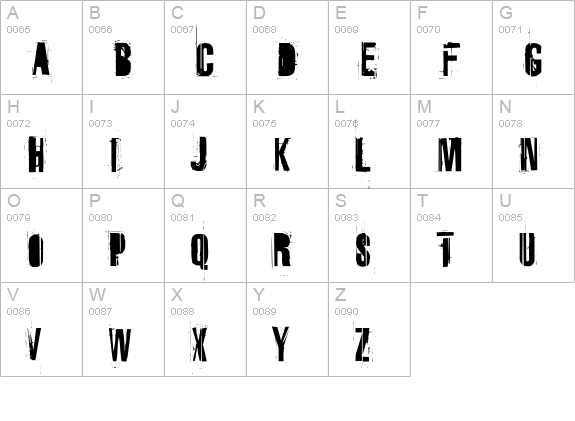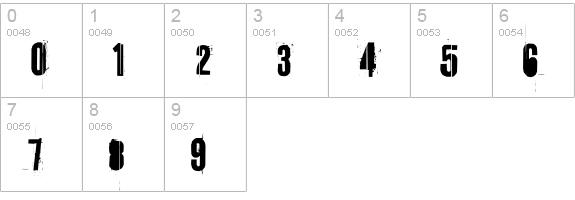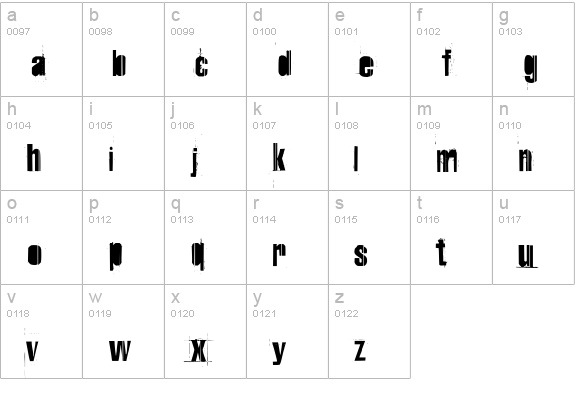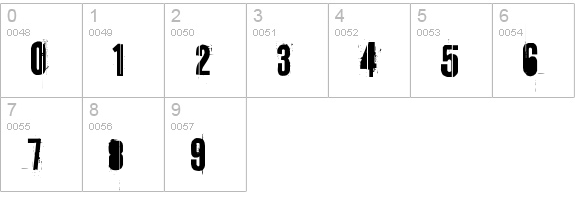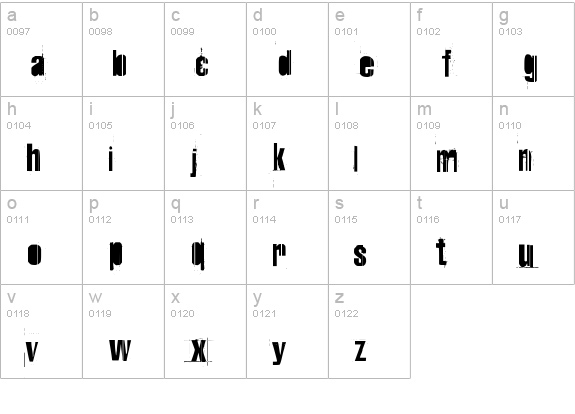
PFUrbanDecay Font Details
PFUrbanDecay is a modern and edgy font that exudes a rebellious spirit. With its bold and striking appearance, this font is perfect for making a statement in your designs. The distressed and grungy look of PFUrbanDecay adds a touch of urban flair to any project, making it ideal for posters, album covers, and other creative endeavors. The best part? PFUrbanDecay is completely free to download at FontsMarket.com. With just a few clicks, you can add this unique and eye-catching font to your collection without spending a dime. So why wait? Get your hands on PFUrbanDecay today and unleash your creativity in ways you never thought possible.